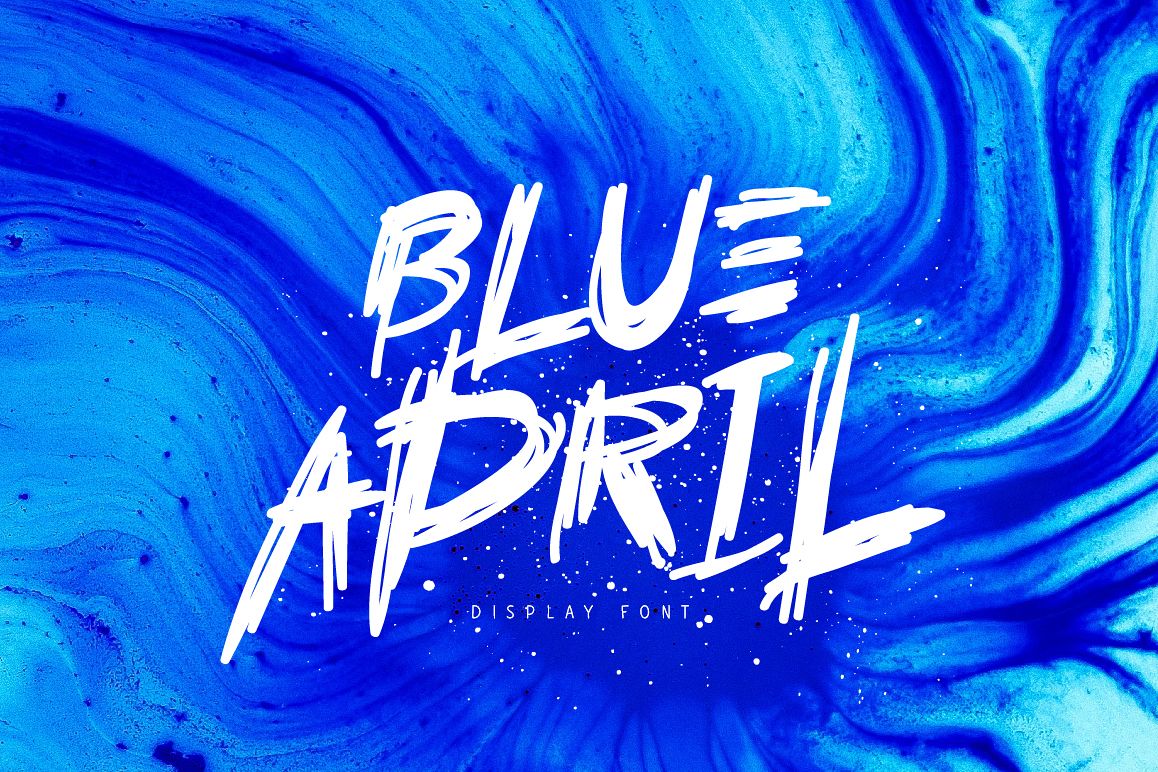
Blue April
Blue April comes with all caps uppercase and lowercase letters, large set of punctuation, numerals, cyrillic characters and multilingual support.
Ideal for quotes, posters, t-shirt, logos, product packaging, book cover and etc.